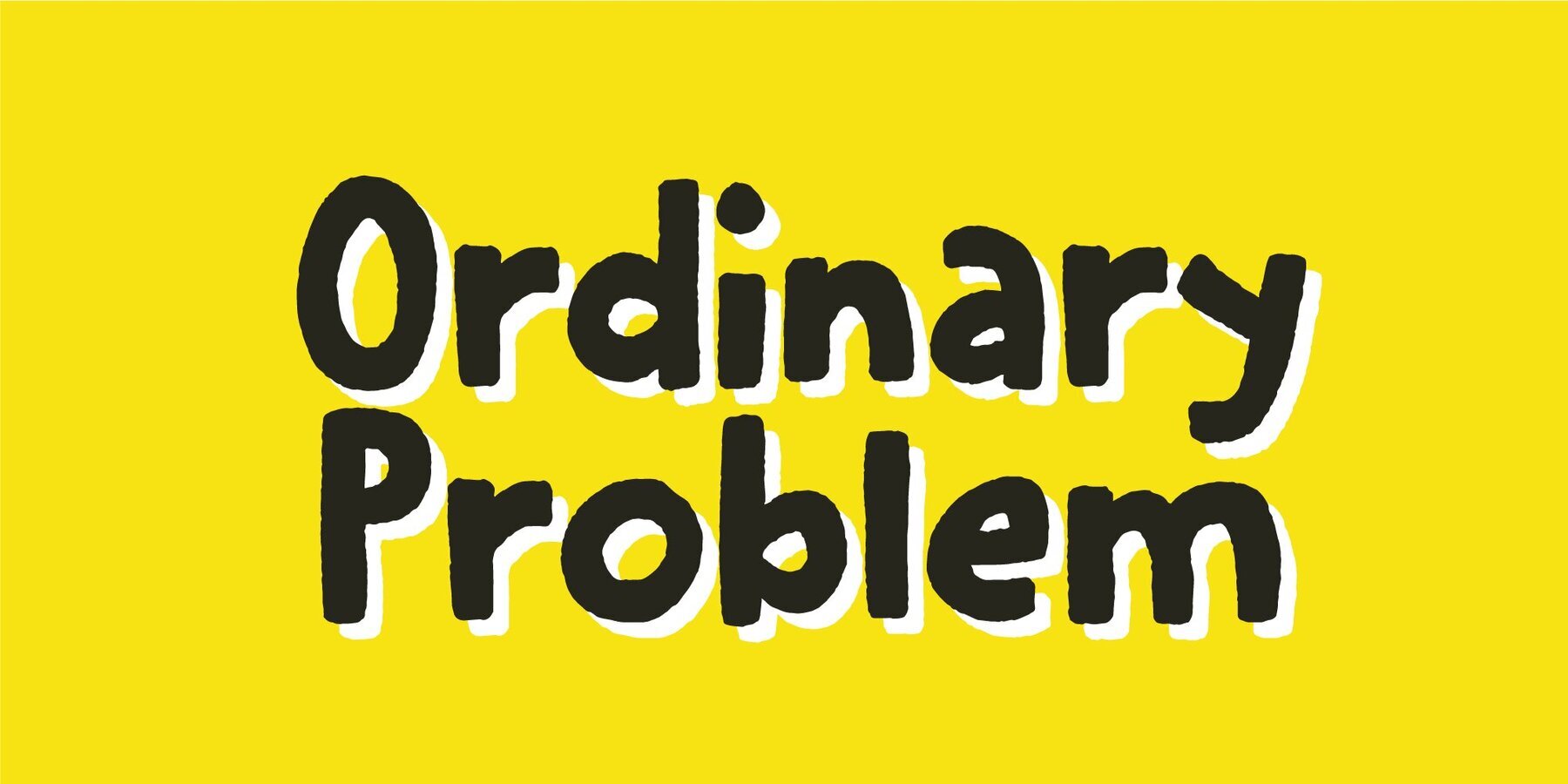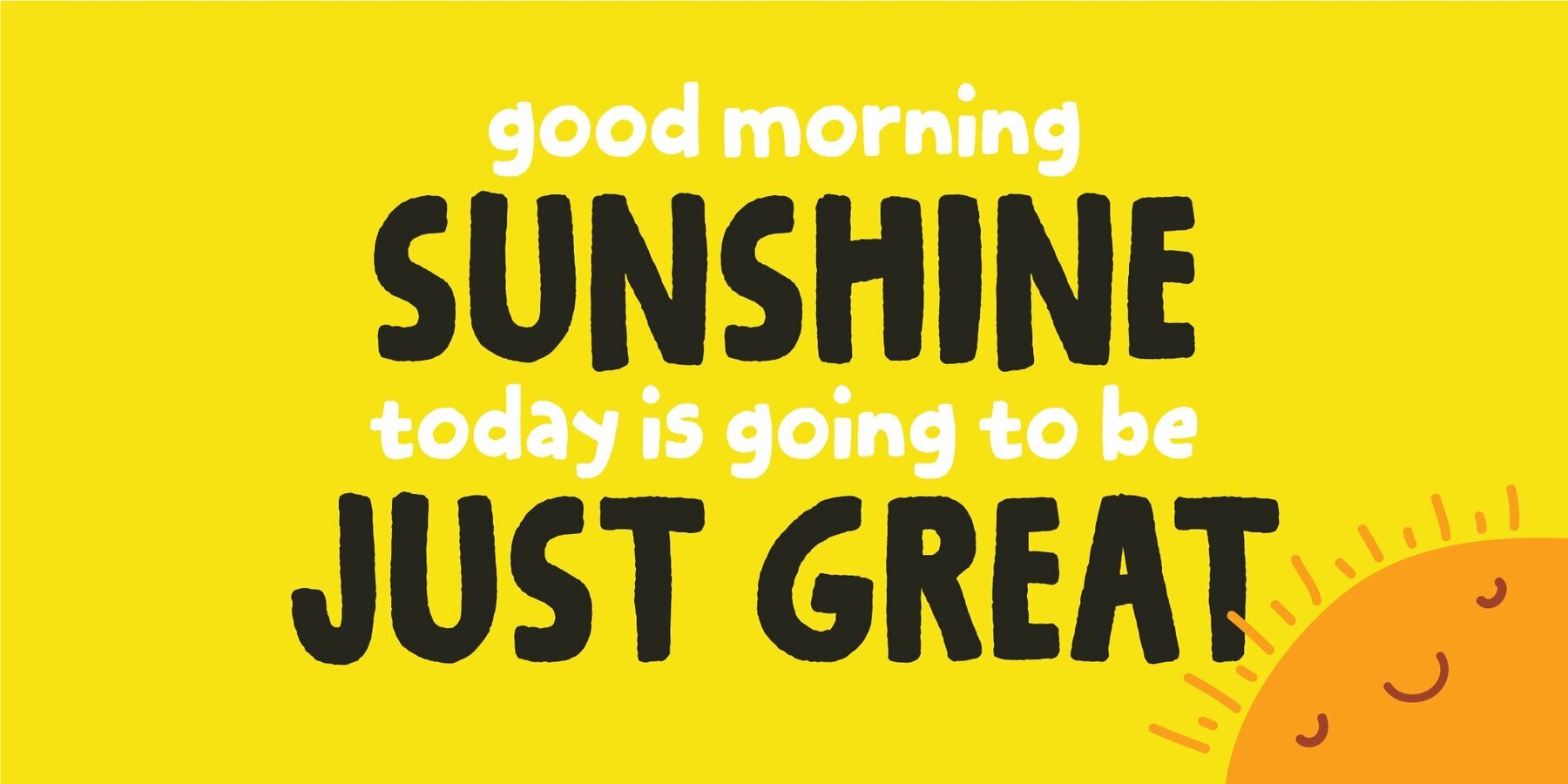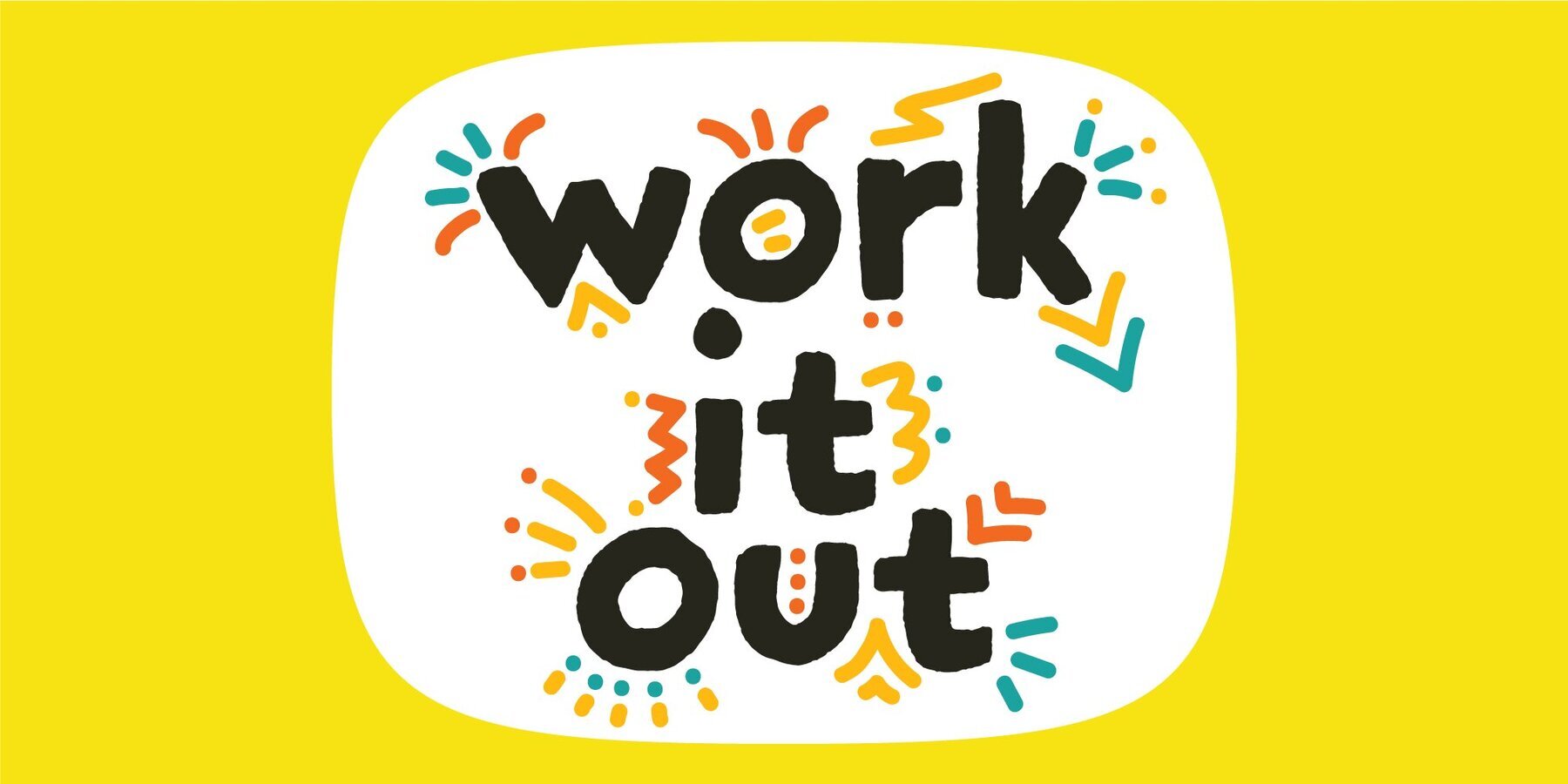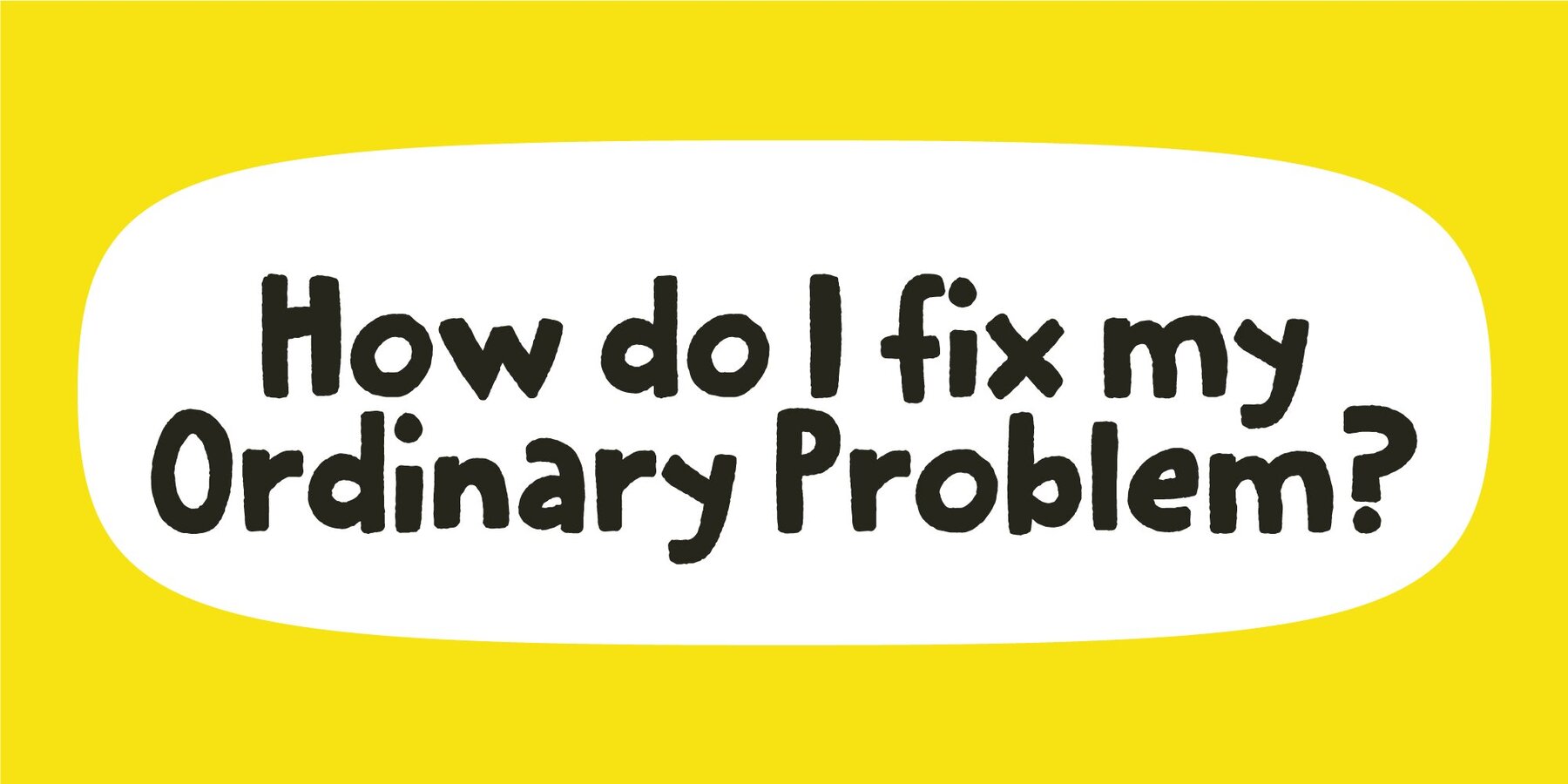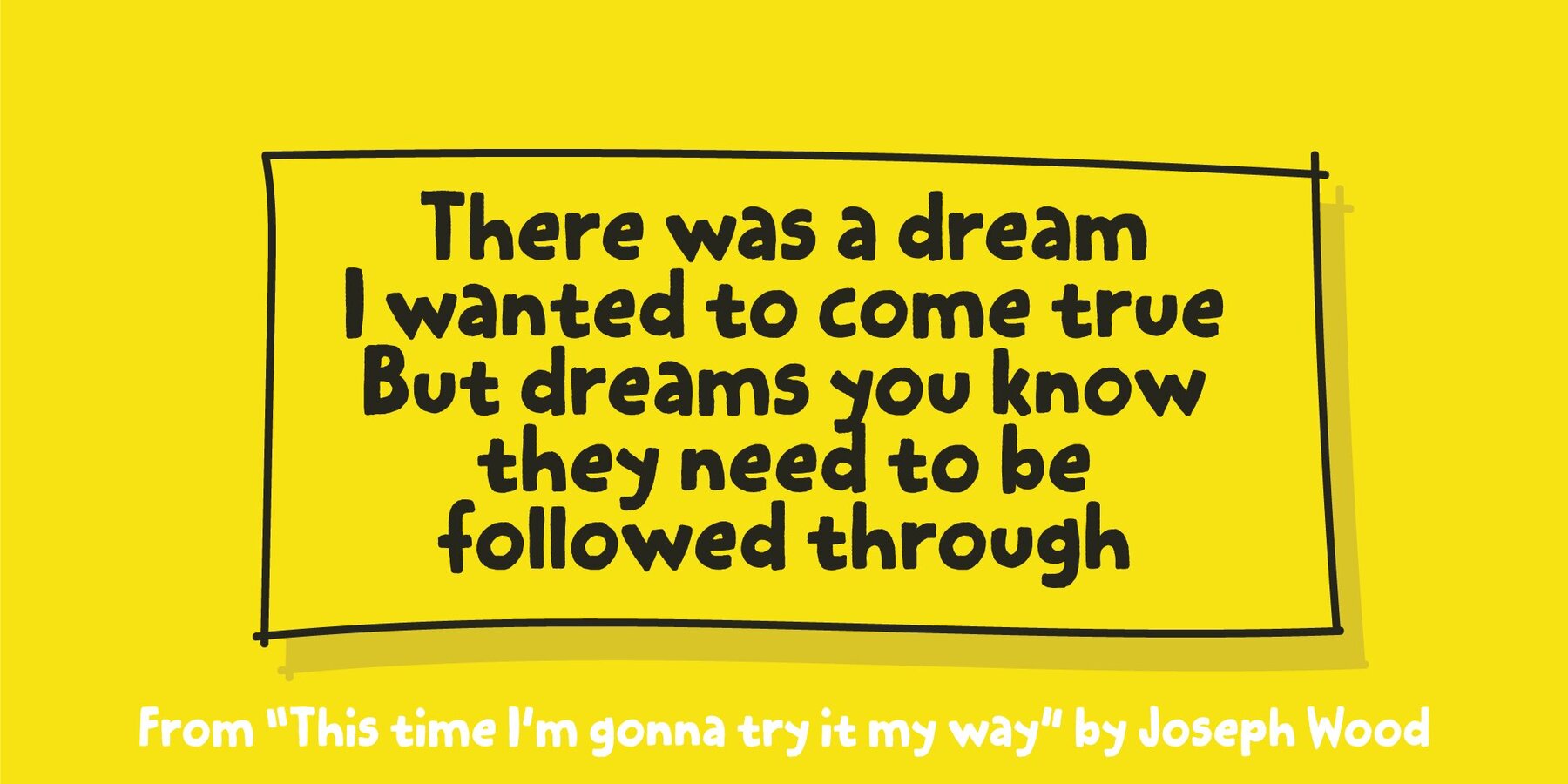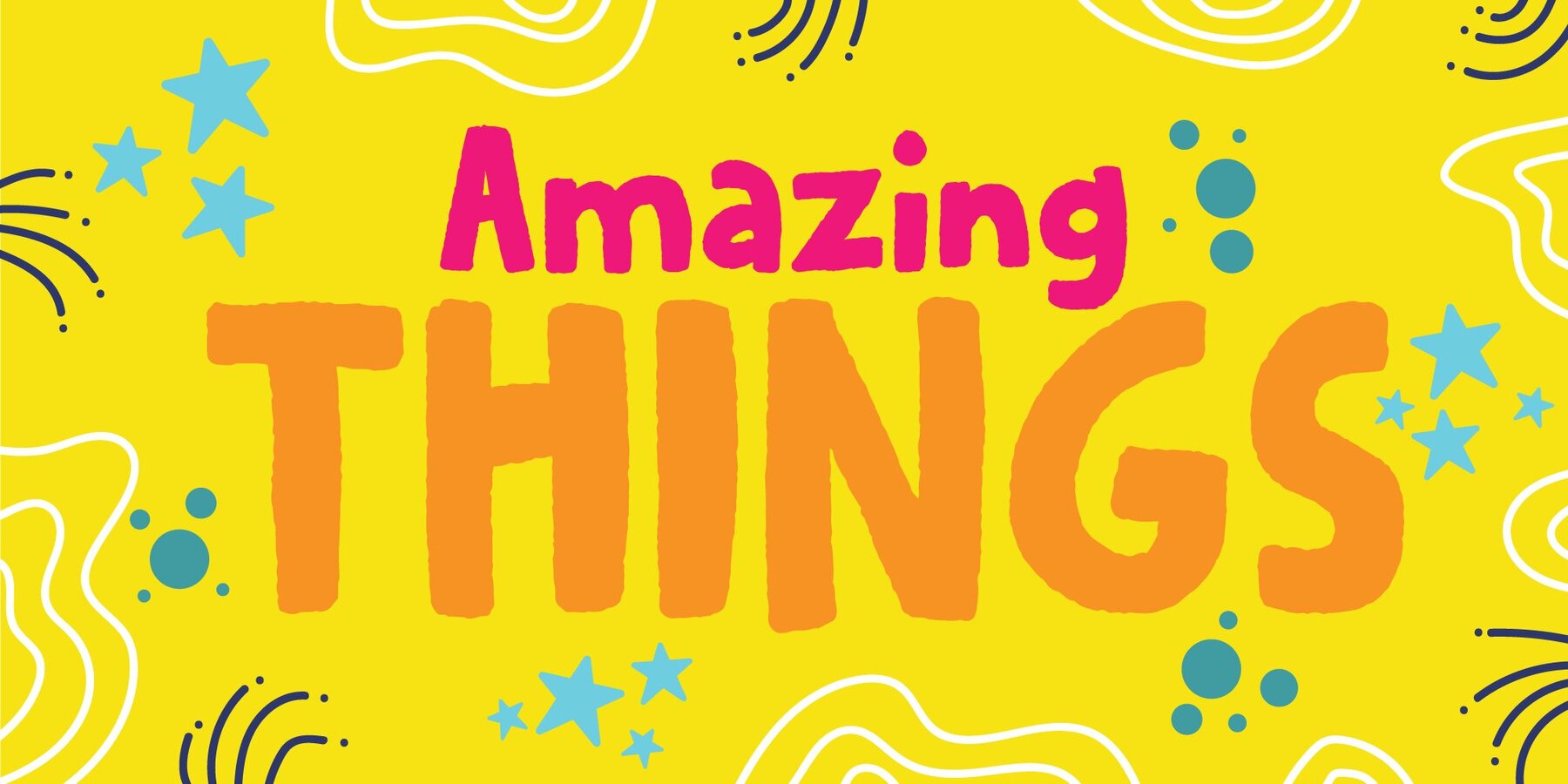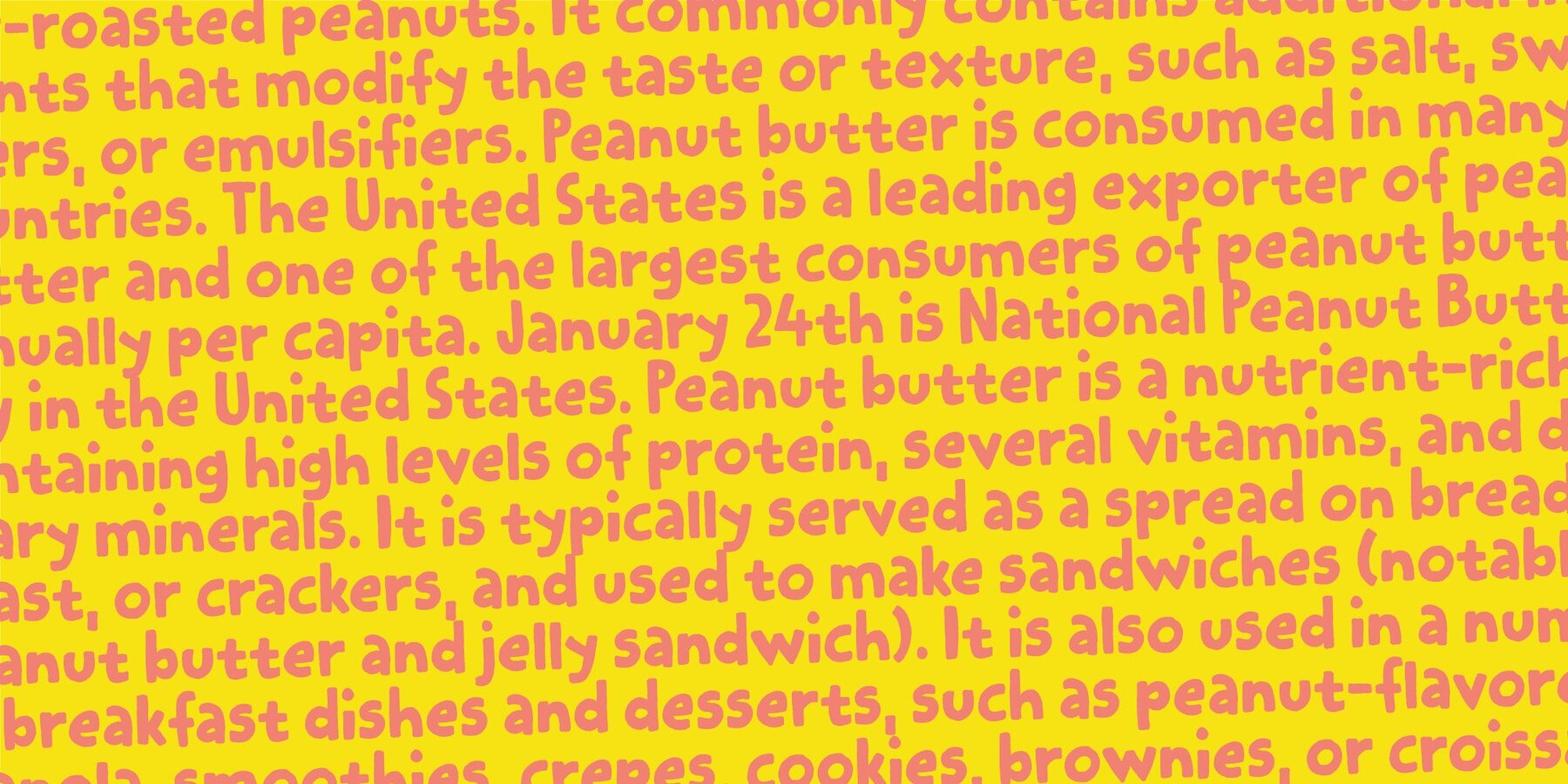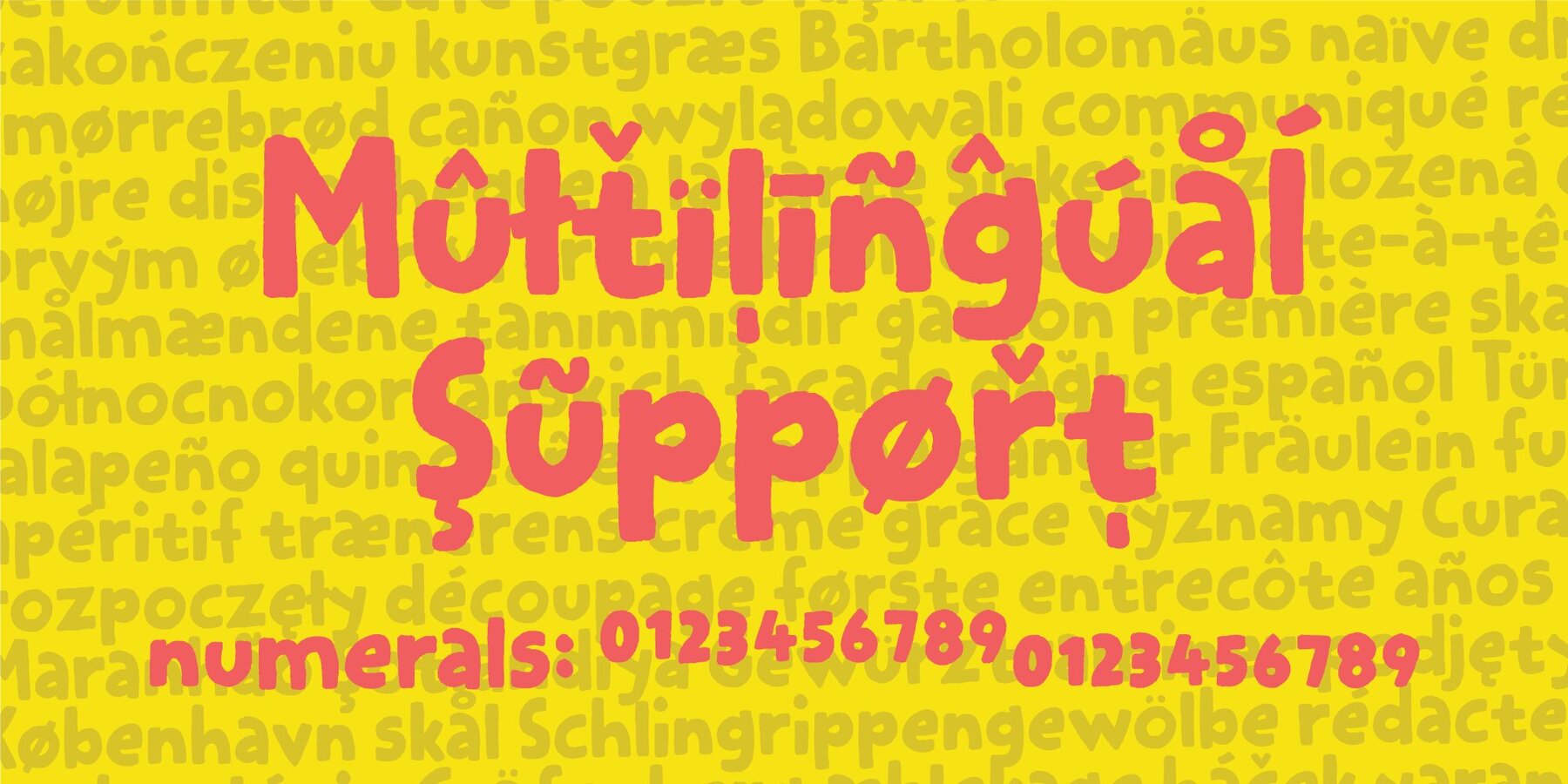
Ordinary Problem Font
Ordinary Problem Regular
Ordinary Problem Italic
This chunky and crunchy font is perfect for creating titles, illustrations and products that needs a realistic and organic handmade look.